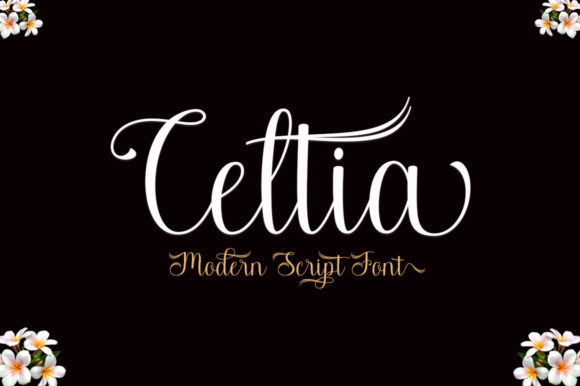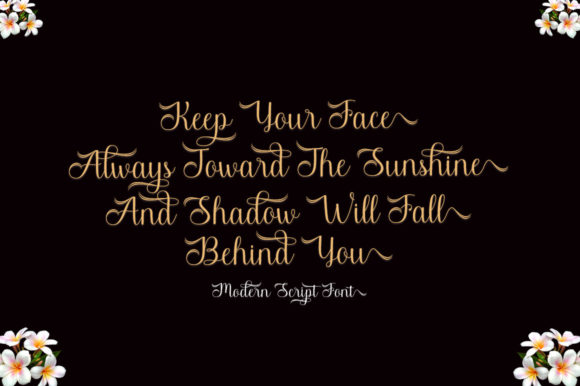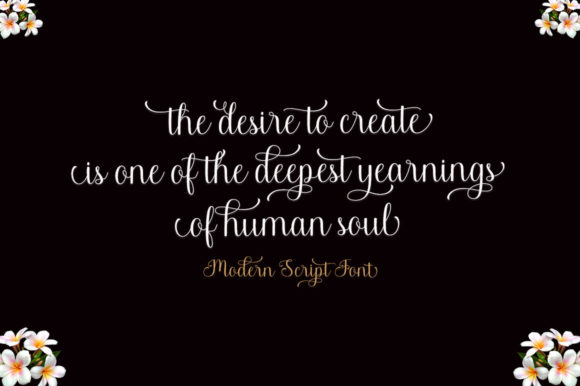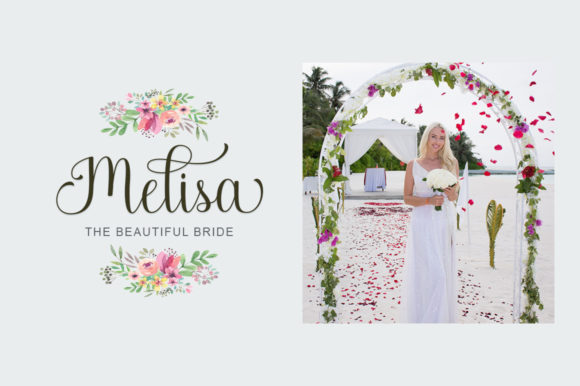
About Celtia Font
Celtia is a unique and elegant handwritten font. It looks beautiful on a variety of designs requiring a personalized style, such as wedding invitations, thank you cards, weddings, greeting cards, logos and so on.